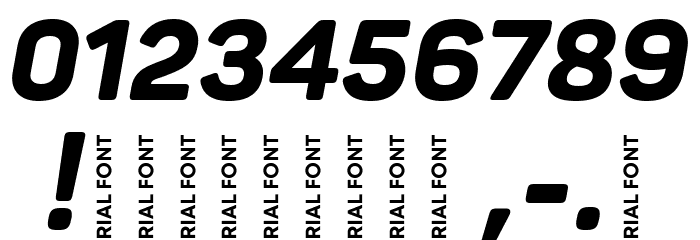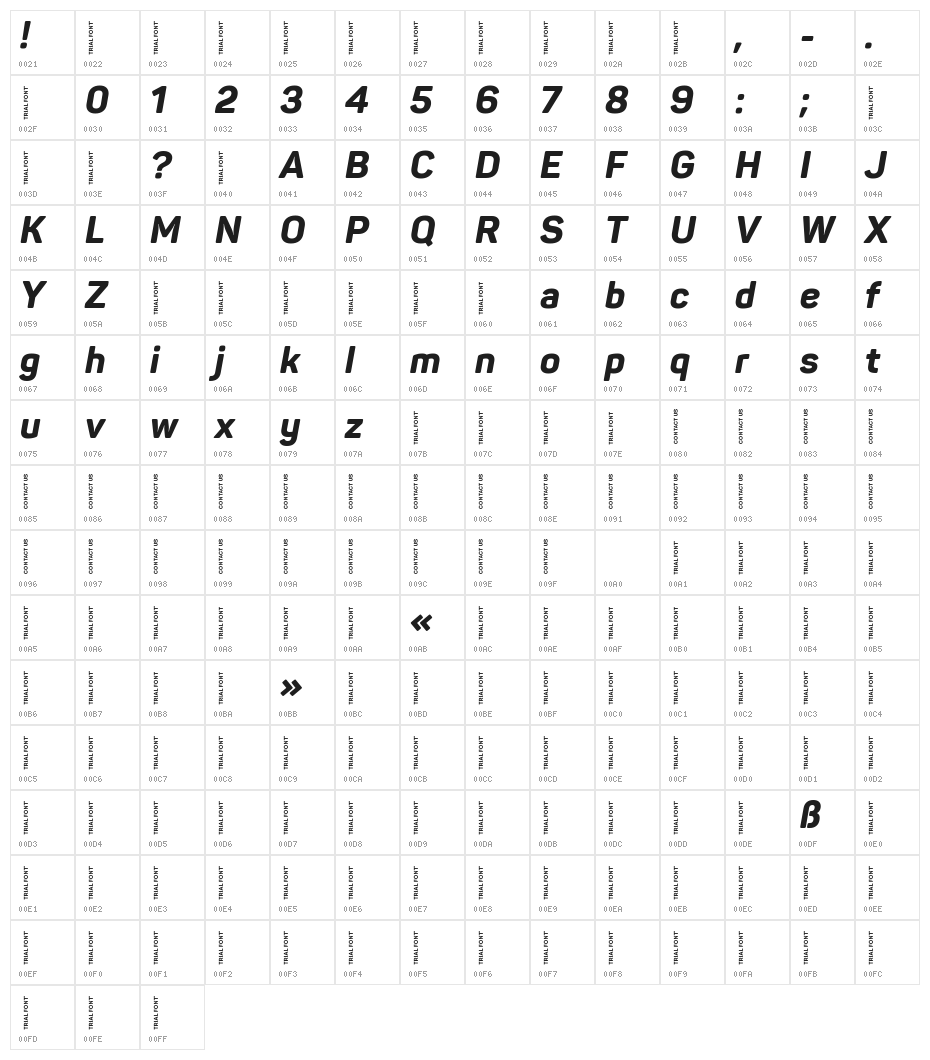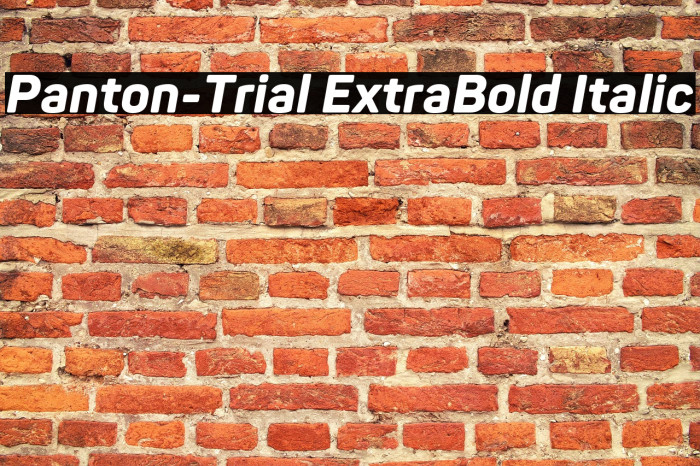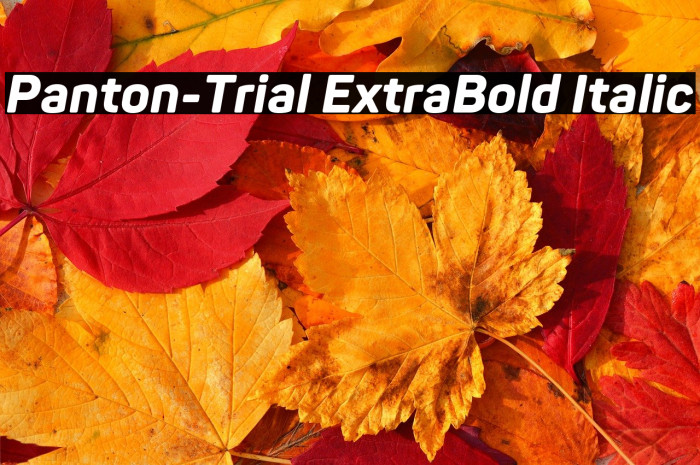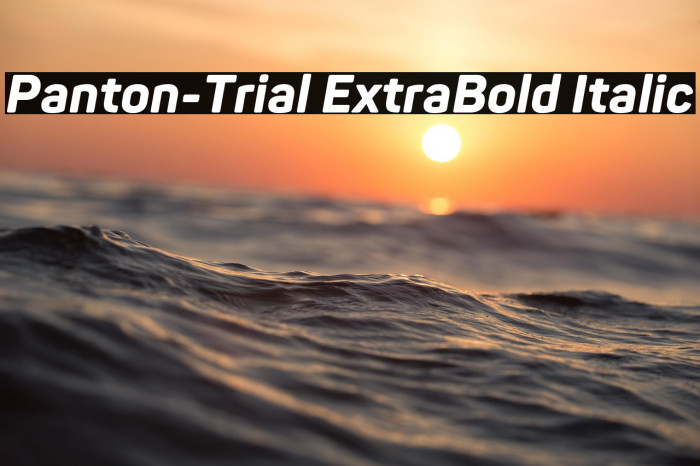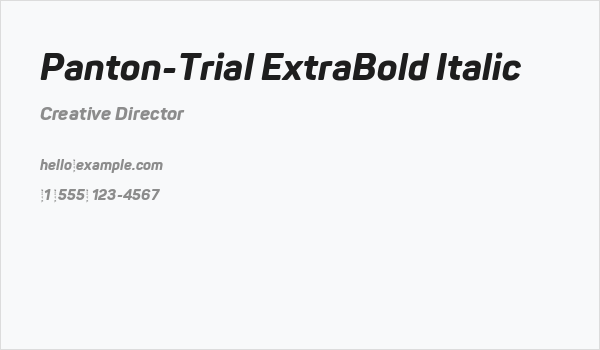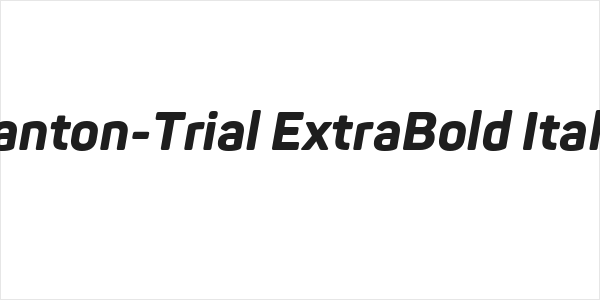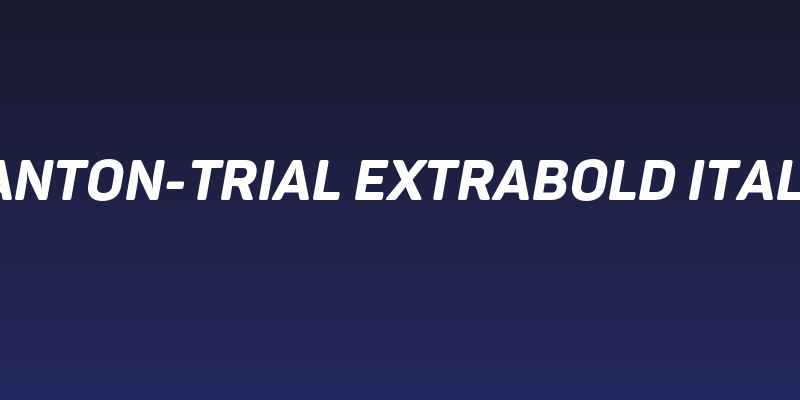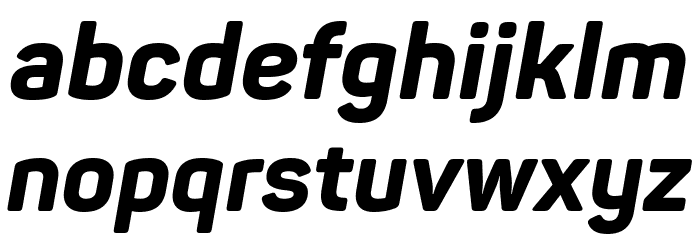
Panton-Trial ExtraBold Italic Font
Panton-Trial ExtraBold Italic Description
This font features a bold and dynamic appearance with a strong emphasis on modernity and clarity. The characters are italicized, adding a sense of motion and fluidity. The strokes are thick, providing a robust and confident look, ideal for making impactful statements. The overall design is clean and sans-serif, ensuring excellent readability across various media. The numbers and special characters maintain the same bold style, ensuring consistency throughout. This font is versatile, suitable for both digital and print applications, where a contemporary and assertive style is desired.